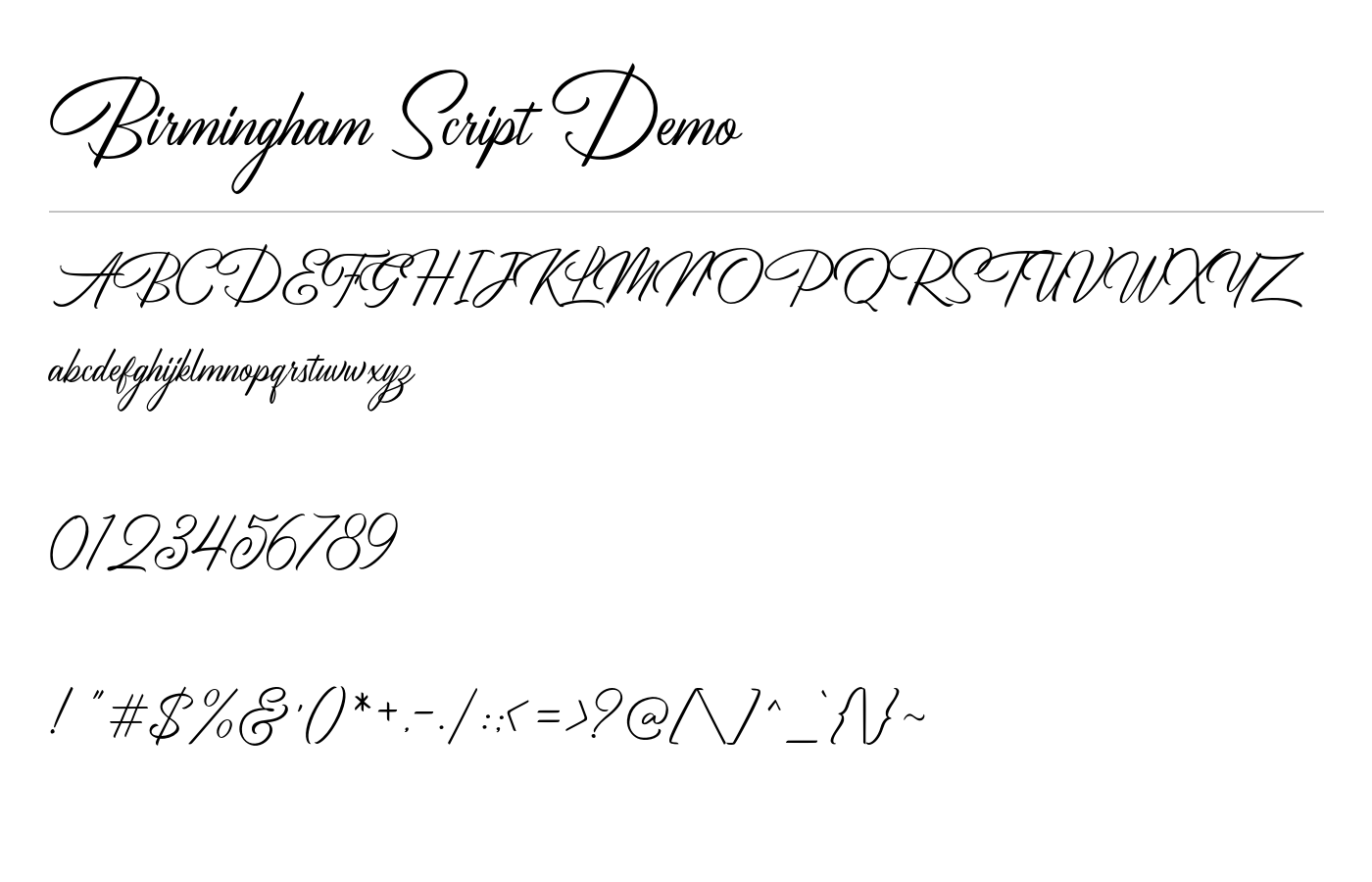
Birmingham Script Demo is an elegant, flowing script font characterized by its slender, smooth strokes and graceful letterforms. Its light weight and delicate curves give it a refined, sophisticated feel, making it ideal for invitations, branding, and editorial use where a touch of luxury and timeless style is desired. This font works beautifully in headlines or decorative text, adding a sense of elegance and refinement to any design.
Birmingham Script Demo Font
About Birmingham Script Demo Font
| Font family | Birmingham Script Demo Font |